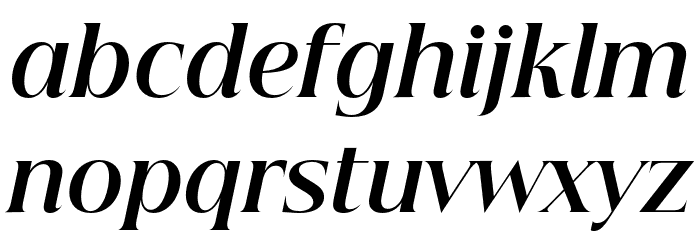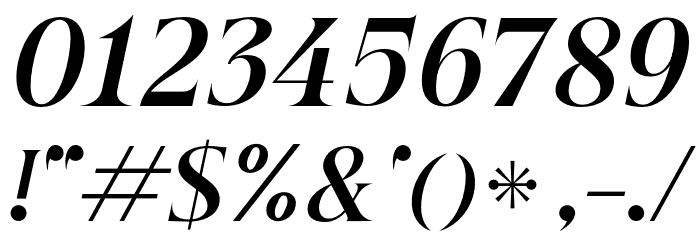
Beautique Display Bold Italic Font
This font exudes elegance and sophistication with its bold and italicized style. The characters are gracefully slanted, adding a dynamic and fluid motion to the text. The strokes are thick and confident, providing a strong visual impact. The serif elements are pronounced, giving it a classic and timeless appearance. The numerals and special characters maintain the same bold and italicized characteristics, ensuring consistency throughout. This font is perfect for making a statement with its striking presence.
Elegant and bold italic serif font with a classic and sophisticated style.
- Proposed Projects: Ideal for luxury branding, high-end fashion magazines, elegant invitations, and sophisticated advertising campaigns.
- Category: Serif
- Overall Style: Classic
- Use Case: Headlines, Logos, Invitations